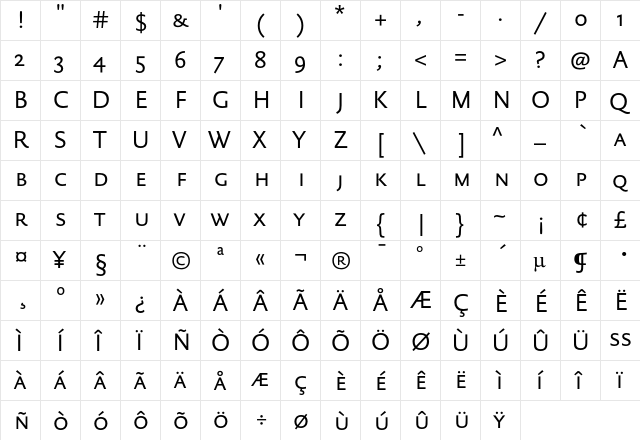
DTL Documenta Sans T Caps Regular Font Preview
DTL Documenta Sans T Caps Regular
DTL Documenta Sans T Caps Regular Font Details
Design Context for DTL Documenta Typeface
DTL Documenta offers clean, dependable letterforms without strong stylistic allegiance, making it a practical choice for designers who need flexibility.